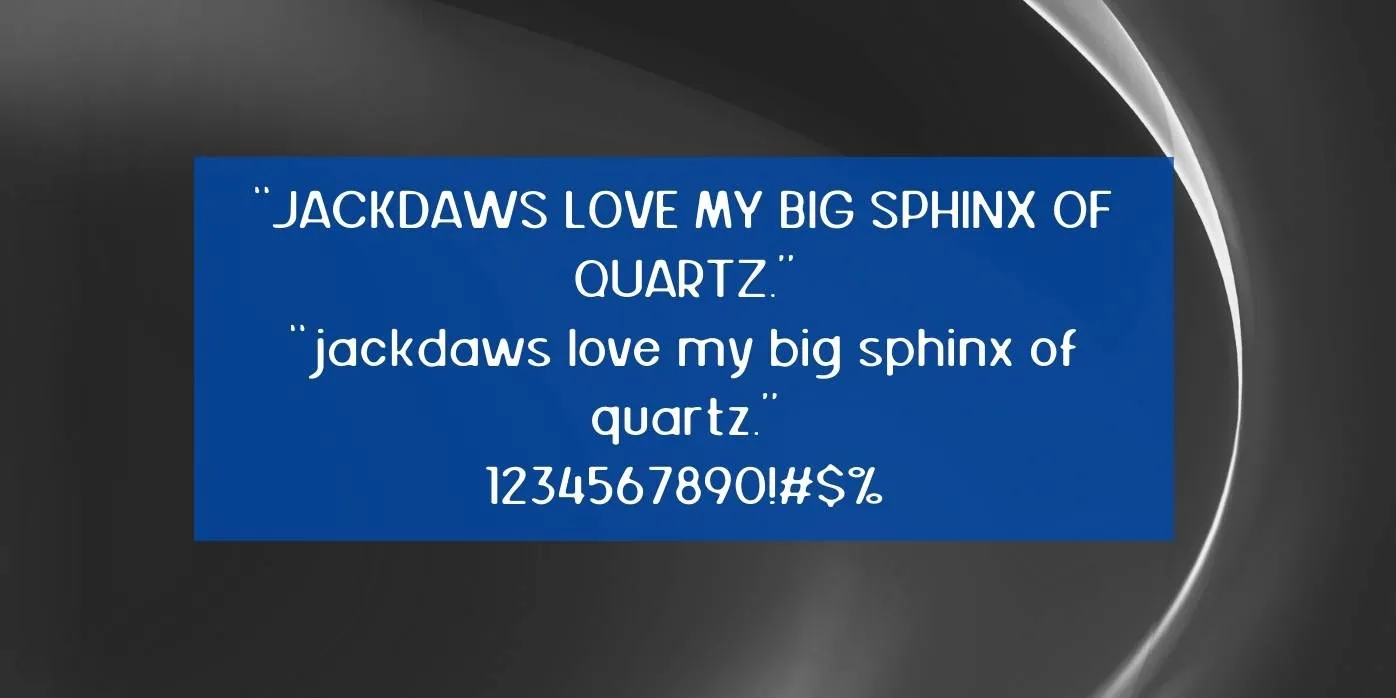
Gihun Font
Here, we present Gihun Font which belongs to the sans serif font family. This staggering font family was designed by Khurasan. This outstanding font family contains a total of 12 fonts including 6 weights Light, Regular, Medium, Bold, Extrabold, and Black with matching italics for each weight. Gihun Typeface is a versatile Typeface family that can be used for both body text and headlines.
The wide range of weights and styles makes it perfect for any design project. You can also use lemon milk light font which is closest to this font family. This gorgeous typeface is available in both TrueType (.ttf) and OpenType (.otf) format. If you are looking for a sans serif font family that is versatile and stylish, then the Gihun Typeface family is the best option.